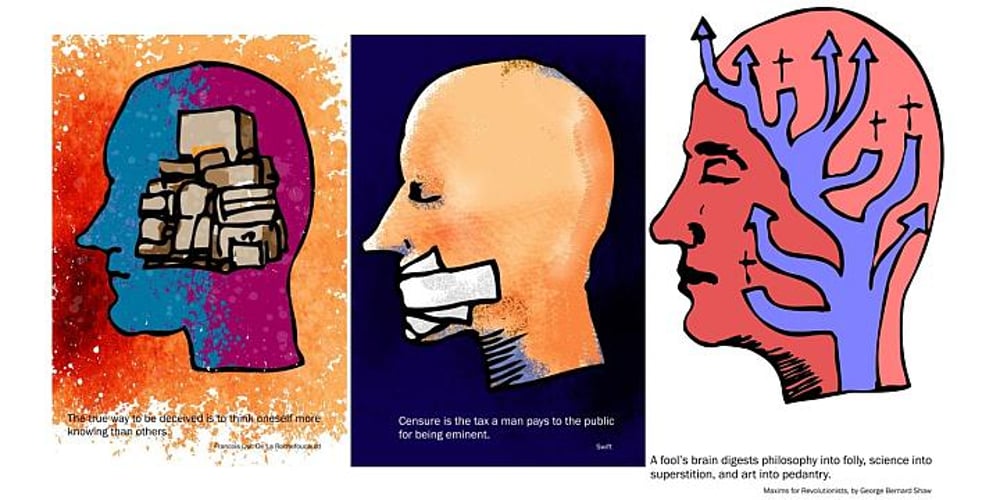
Entestats
Entestats font
Entestats Font Family was designed by Joan M. Mas and published by Typephases. Entestats contains 3 styles and family package options. Nearly a hundred human heads, in three dingbat files. The whole series comes from the sketchbook: the original ink drawings were then digitized and refined to create vector outlines. Rather than perfectly smooth, geometrical shapes, the Entestats, like their close relatives in the Capsbats series, the Entestats retain a handmade look and feel. The Entestats are ready-made illustrations, though of course they will appreciate being enriched with colours, textures, an imaginative layout… and use them for a variety of projects. Use them small, as spot illustrations or as big as a whole page or page spread. The Entestats and their kin, the Capsbats, are a terrific resource for presentations, packaging, logos, brochures and advertisements, to name a few applications. The book 1000 Heads is a compendium of the drawings featured in the Capsbats and Entestats and it gives a glimpse of the limitless applications of this collection.